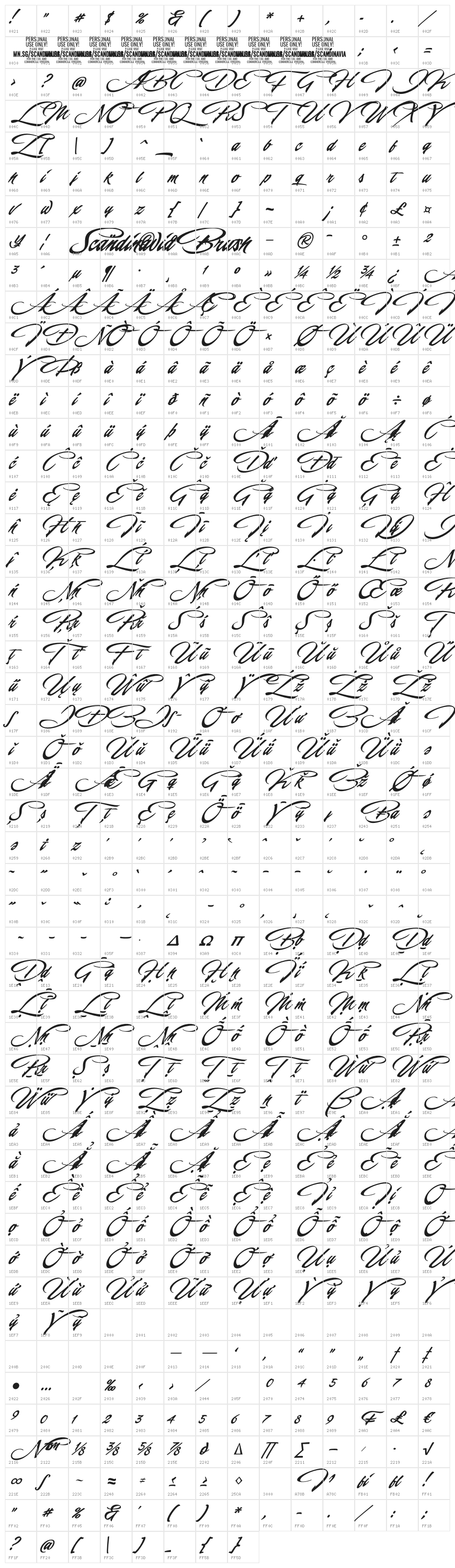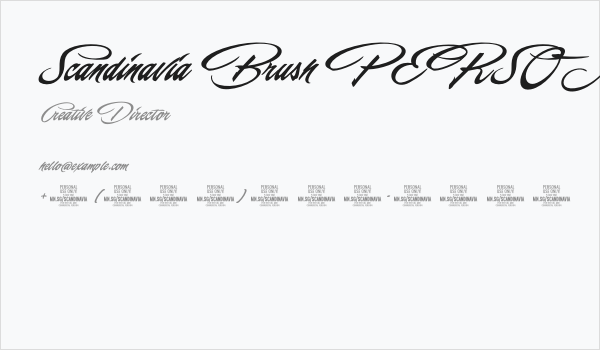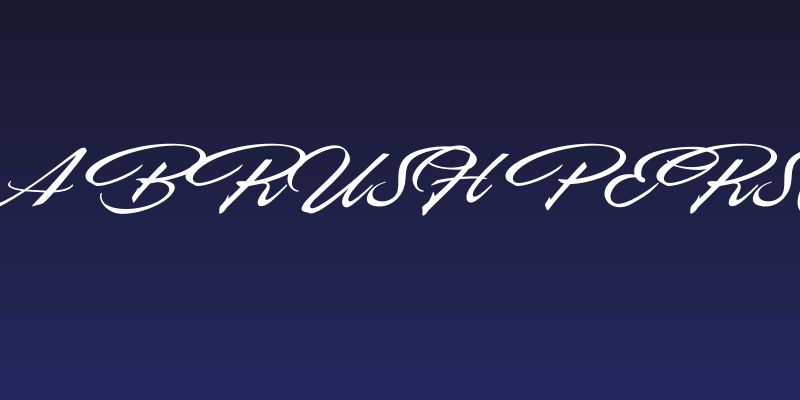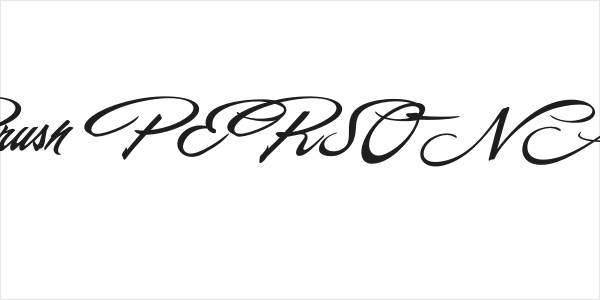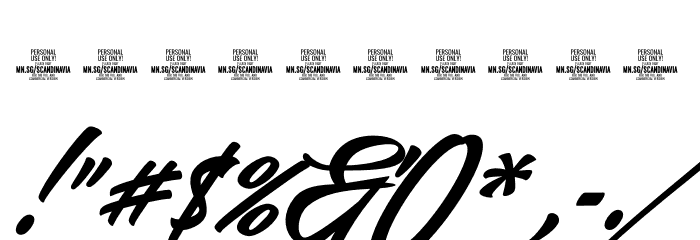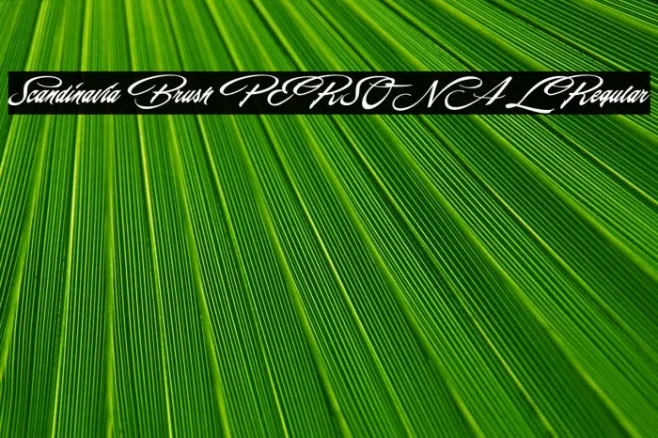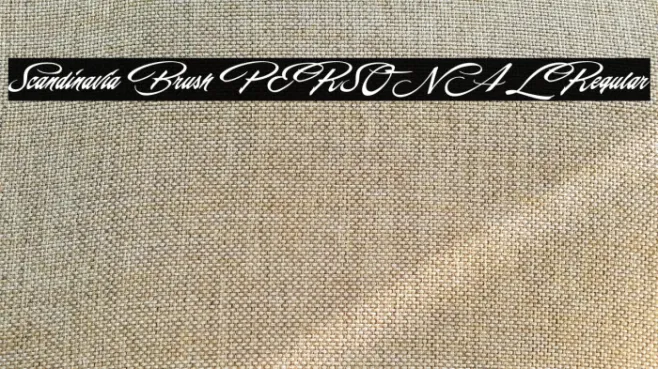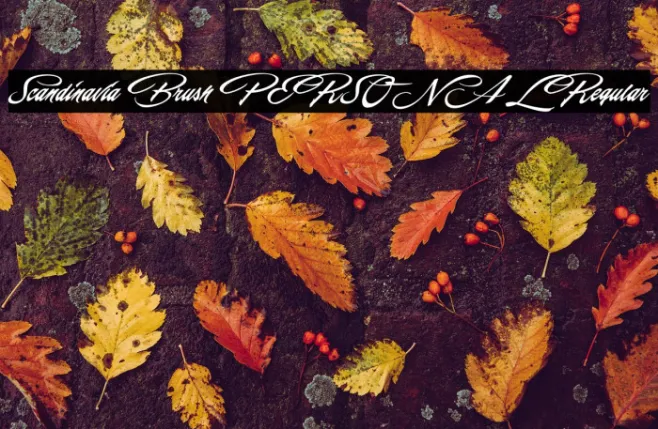
Scandinavia Brush PERSONAL Regular Font
Scandinavia Brush PERSONAL Regular Description
This font features a dynamic and fluid brush script style, characterized by its elegant, flowing strokes and a sense of motion. The uppercase letters are particularly expressive, with sweeping curves and varying line thickness that give a sense of artistry and flair. The lowercase letters maintain this fluidity, offering a cohesive look that is both sophisticated and approachable. The numerals and special characters are designed with the same attention to detail, ensuring consistency across all glyphs. This font is ideal for projects that require a personal touch, such as invitations, branding, or any design that benefits from a handwritten aesthetic.
| Use Case | Logos, Invitations, Branding |
| Proposed Projects | Ideal for invitations, branding, logos, and designs needing a personal, handwritten touch. |